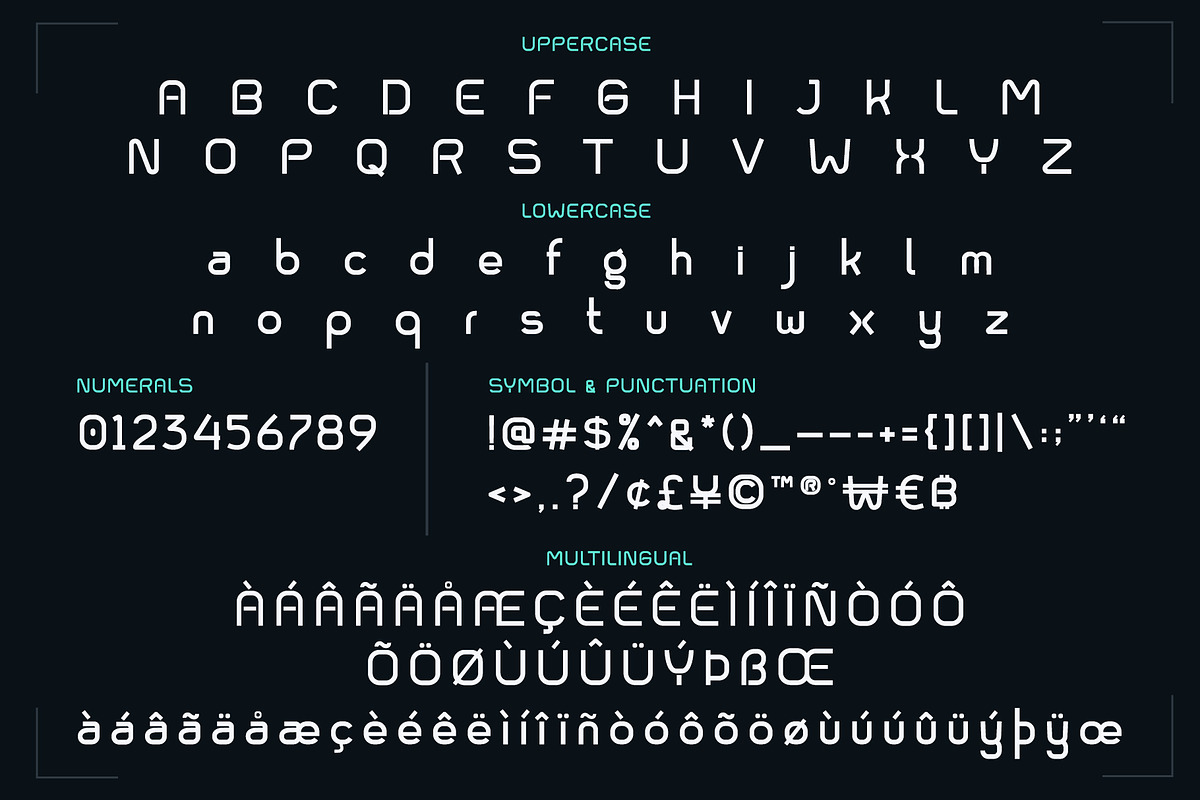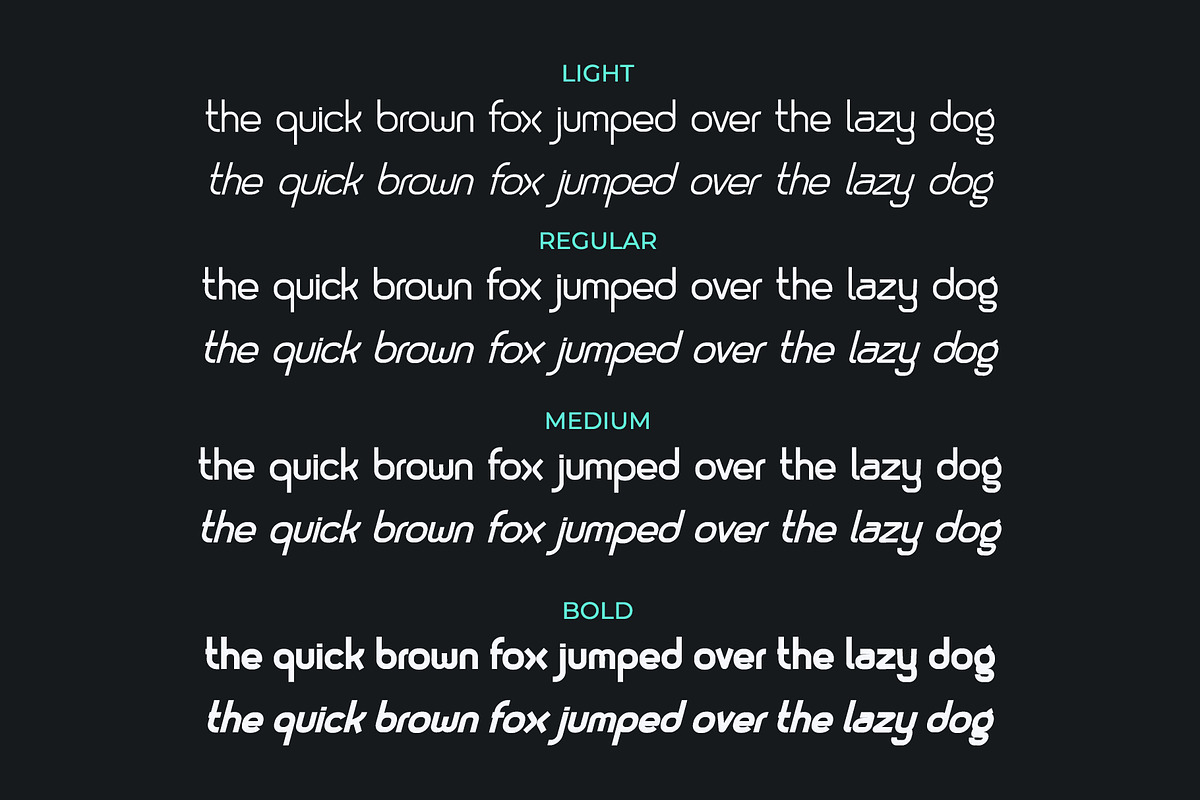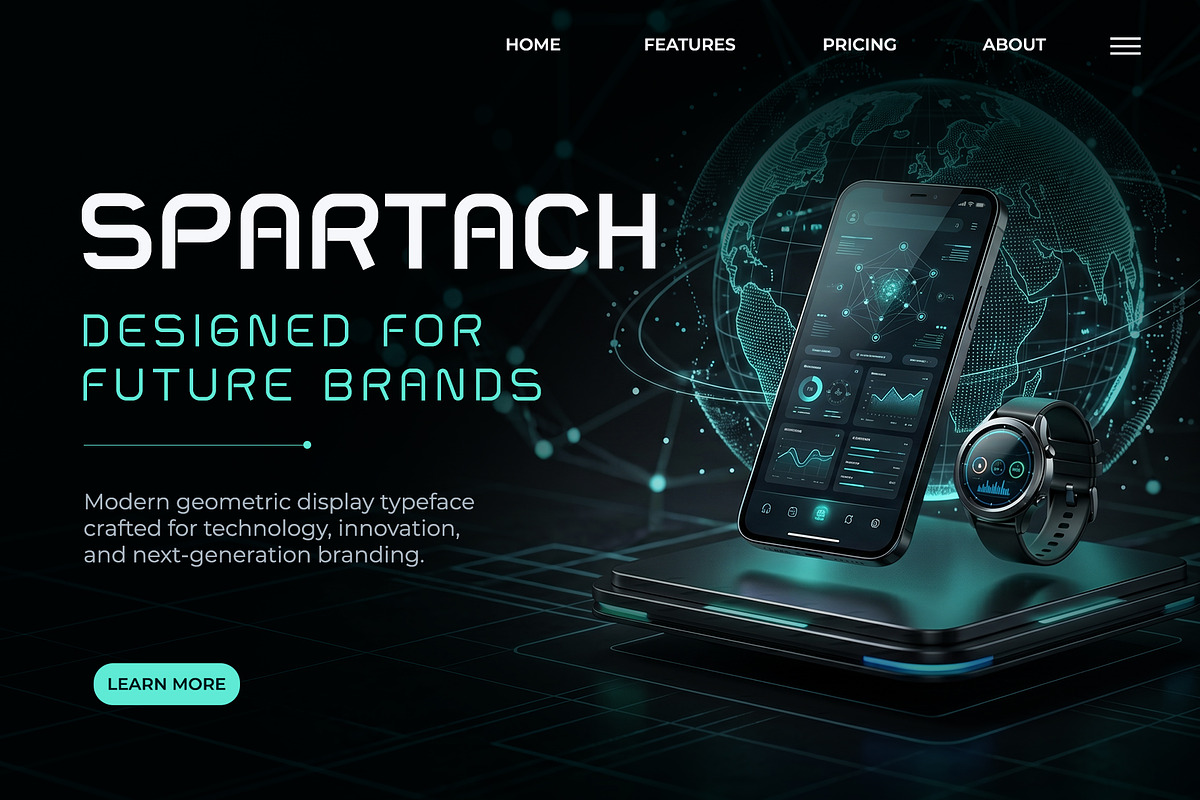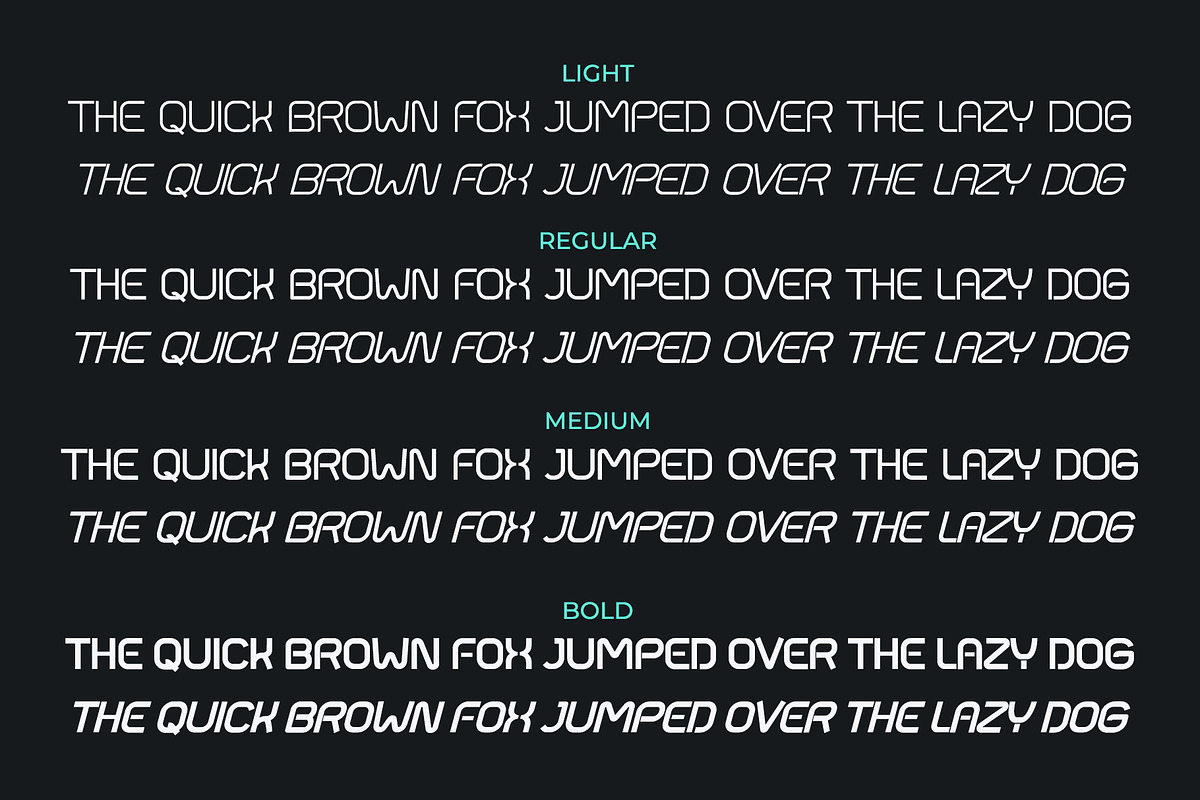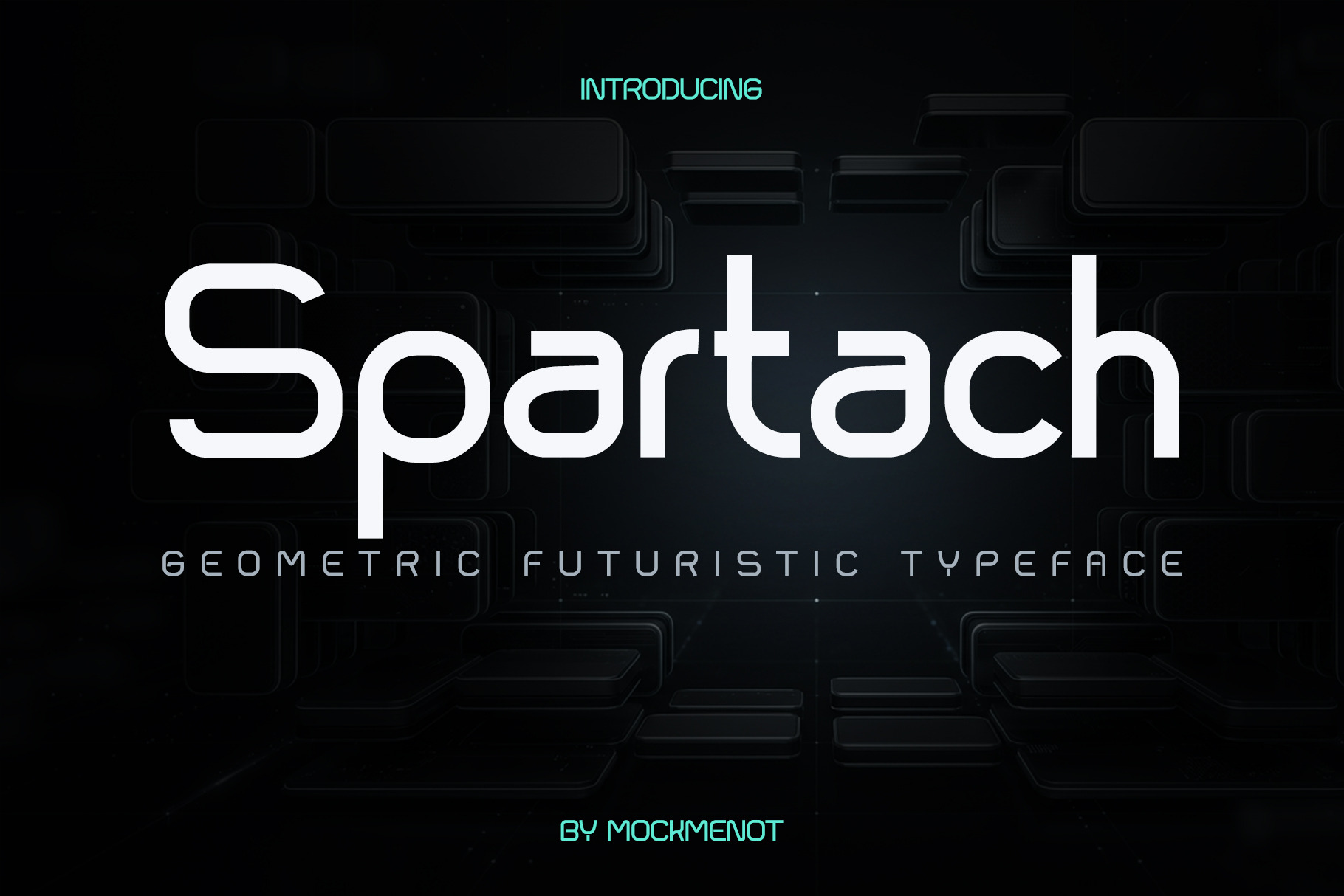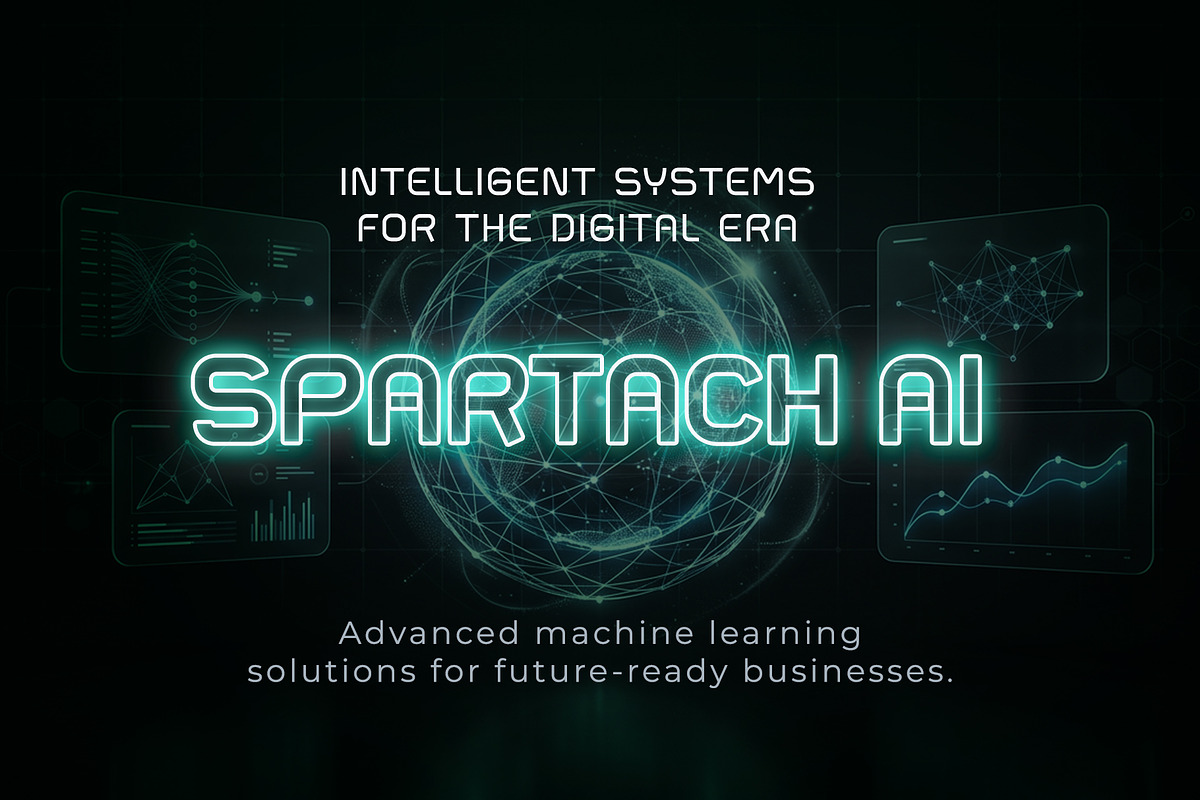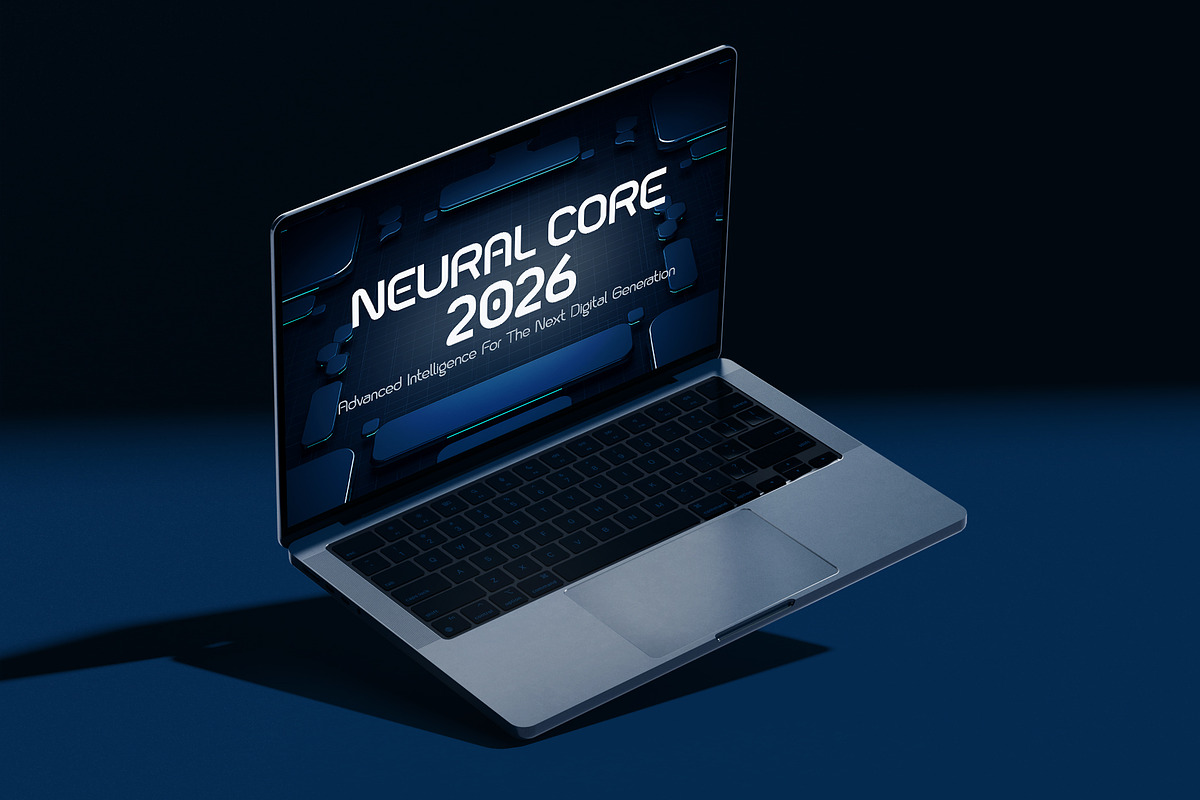
Spartach – Futuristic Font Family
SPARTACH is a modern geometric futuristic typeface designed for technology branding, digital products, startups, gaming, UI design, and innovative visual identities. Featuring clean monoline strokes, rounded geometric construction, and a sleek futuristic appearance, SPARTACH delivers a distinctive balance between readability and modern aesthetics.
With 8 versatile styles, this font family provides the flexibility needed for headlines, logos, website hero sections, product packaging, posters, social media graphics, and technology-focused branding projects.
Geometric Futuristic Sans Serif
Suitable for Logos, Branding, Headlines & Display Use